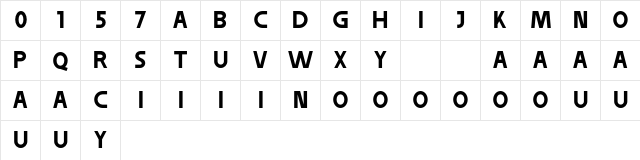
Galgator Free Bold
| Foundry | sixtwenty studio |
| Designer | M ANsori Zakaria |
Design Context for Galgator Free Typeface
Galgator Free offers clean, dependable letterforms without strong stylistic allegiance, making it a practical choice for designers who need flexibility. The heavy weight commands attention and anchors typographic hierarchies.